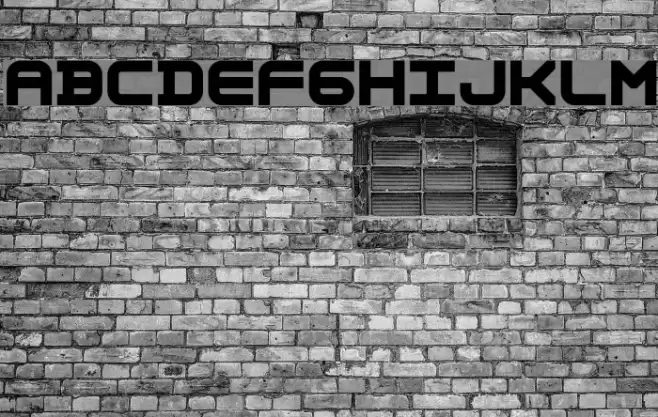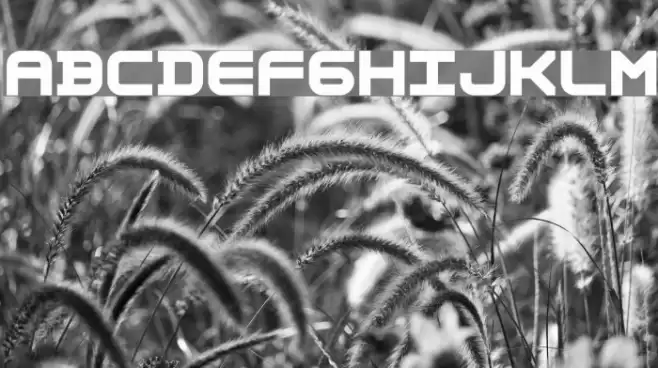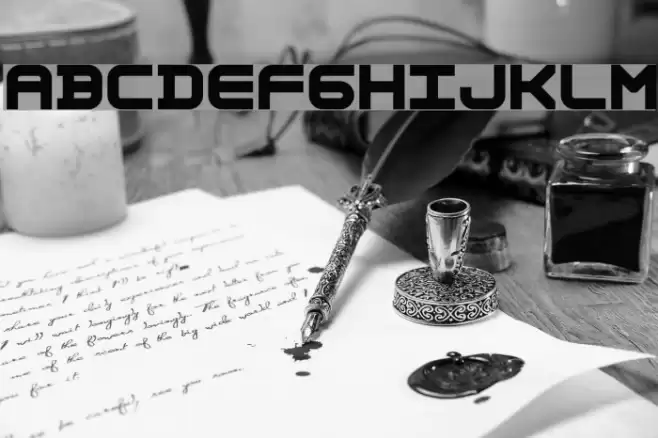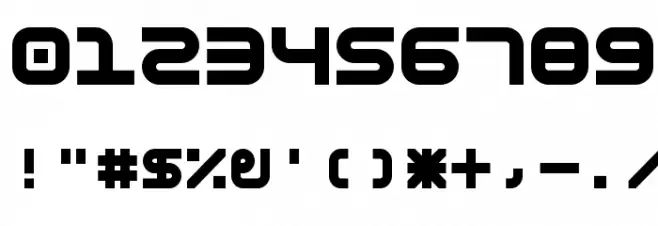
AstronomicMono Font
AstronomicMono Description
This font features a futuristic and geometric design, characterized by its bold and monospaced structure. Each character is crafted with a consistent width, providing a uniform appearance across all letters and numbers. The font exhibits a strong presence with its thick strokes and angular shapes, making it ideal for modern and tech-oriented designs. The uppercase and lowercase letters maintain a cohesive style, while the numerals and special characters complement the overall aesthetic. The font's distinct style is suitable for projects that require a contemporary and innovative look.
A bold, geometric monospaced font with a futuristic design from Uncategorized fonts.
- Proposed Projects: Ideal for tech branding, digital interfaces, coding environments, and sci-fi themed projects.
- Use Case: Headlines, Logos, Digital interfaces
- Is Fixed Pitch: Yes